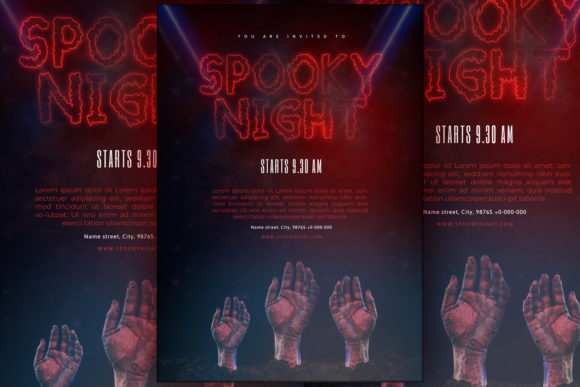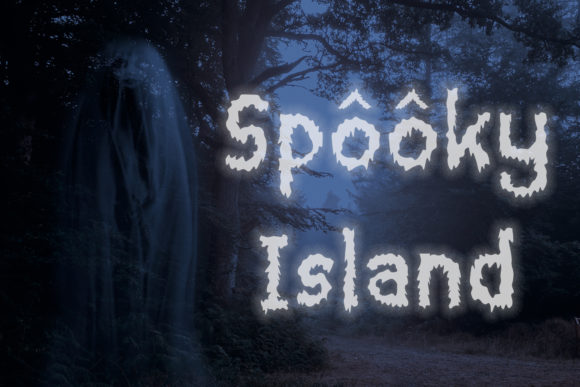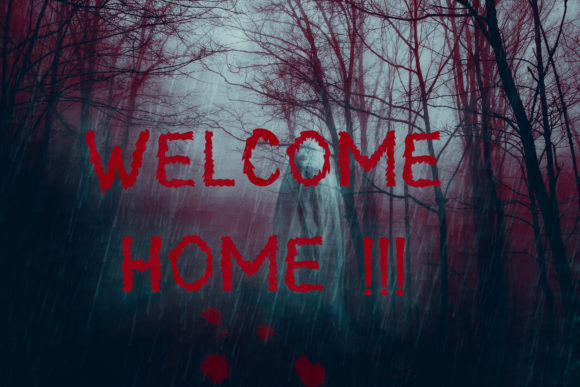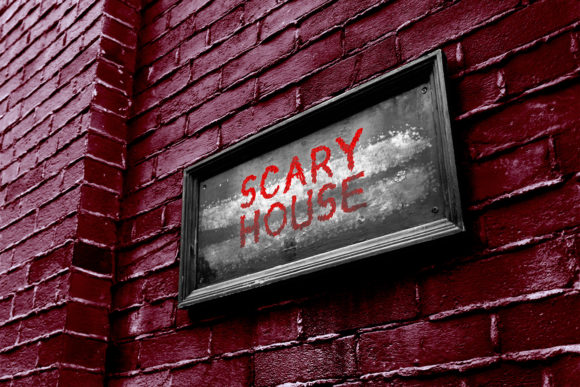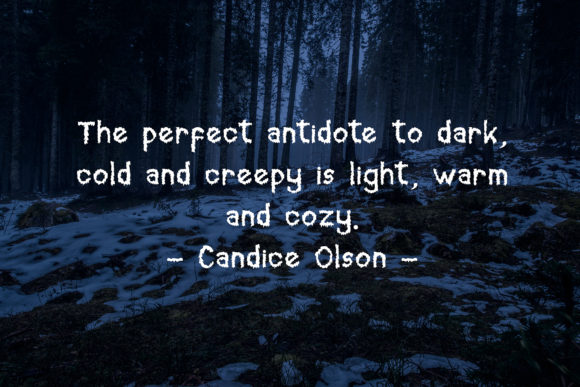
Unleash the Terror with Creepy Forest Font: The Ultimate Choice for Halloween and Horror Projects
As the spookiest time of the year approaches, designers and crafters are on the lookout for the perfect font to add a chilling touch to their Halloween and horror-themed projects. Look no further than the Creepy Forest Font, a scary yet fascinating typeface that is sure to make your creations stand out. In this article, we’ll dive into the eerie world of Creepy Forest and explore why it’s the ideal font for any Halloween project.
The Inspiration Behind Creepy Forest
Creepy Forest Font is a meticulously crafted typeface that draws inspiration from the darker corners of the forest. Its design is rooted in the eerie and mysterious ambiance of the woods, where the trees seem to whisper sinister tales to those who dare to listen. The font’s creator aimed to capture the essence of this foreboding environment and translate it into a digital format that would send shivers down the spine of anyone who lays eyes on it.
Key Features of Creepy Forest Font
So, what makes Creepy Forest Font so special? Here are some of its key features:
- Scary yet Elegant: Creepy Forest Font strikes the perfect balance between being eerie and elegant. Its unique design ensures that your projects look sophisticated while still conveying a sense of fear and unease.
- Highly Versatile: Whether you’re working on a Halloween-themed party invitation, a horror movie poster, or a spooky video game, Creepy Forest Font adapts seamlessly to any project.
- Easy to Read: Despite its creepy appearance, the font remains highly legible, making it perfect for both headings and body text.
- Customizable: Feel free to experiment with different sizes, colors, and effects to make Creepy Forest Font your own.
Why Designers and Crafters Love Creepy Forest Font
Creepy Forest Font has quickly become a favorite among designers and crafters for several reasons:
- Instant Impact: The font’s scary feel instantly grabs attention, making it perfect for projects that need to make a bold statement.
- Easy to Pair: Creepy Forest Font pairs well with a variety of other fonts, allowing you to create stunning contrasts and visual hierarchies.
- Supports Multiple Languages: Whether you’re working on a project for a global audience or a specific language, Creepy Forest Font has got you covered.
Tips for Using Creepy Forest Font
To get the most out of Creepy Forest Font, consider the following tips:
- Use it Sparingly: While Creepy Forest Font is eye-catching, using it sparingly can create a more dramatic effect. Balance it with simpler fonts to avoid overwhelming your audience.
- Experiment with Effects: Don’t be afraid to add effects like shadows, glows, or textures to enhance the creepy feel of the font.
- Consider Your Audience: Keep in mind that Creepy Forest Font is geared towards a mature audience. Use it in projects that are suitable for your target demographic.
Creepy Forest Font is more than just a typeface – it’s an experience. Its scary yet elegant design makes it the perfect choice for any Halloween or horror-themed project. Whether you’re a designer, crafter, or simply a fan of all things spooky, Creepy Forest Font is sure to inspire your creativity and leave a lasting impression on your audience. So why wait? Download Creepy Forest Font today and unleash the terror in your designs!